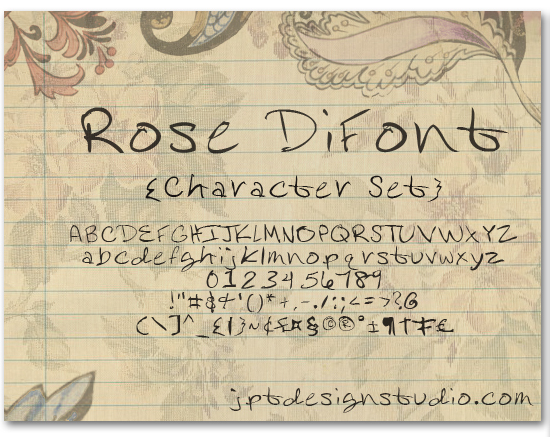
Rose DiFont by Joshua Thompson of Jpt Design Studio is a free handwritten font with tall, loosely drawn letters and an offbeat angular silhouette. Its strokes shift from fine lines to broader turns and taper into pointed ends. The spacing feels deliberately uneven.
Its wiry contours echo quick fashion sketches and naive line drawings, making it a natural match for boutique packaging, editorial illustrations, and music posters. The same restless lettering can become part of a hand-drawn event identity or playful merchandise graphic.
Rose DiFont